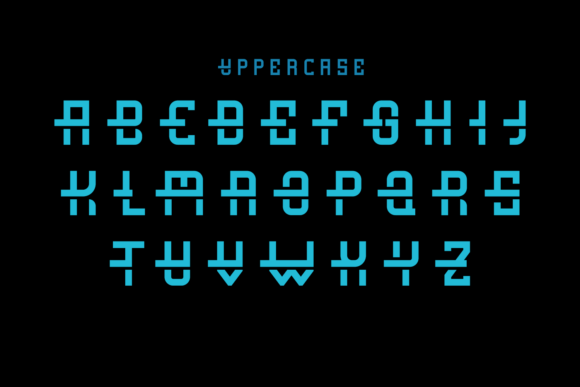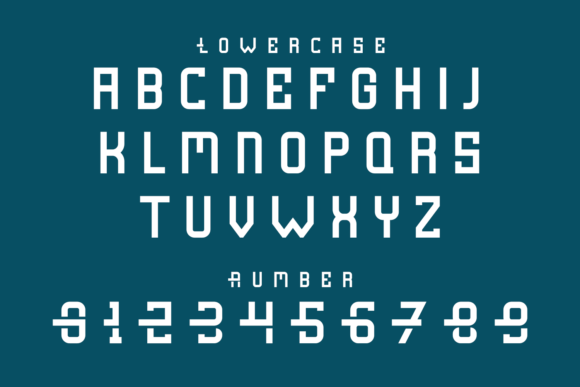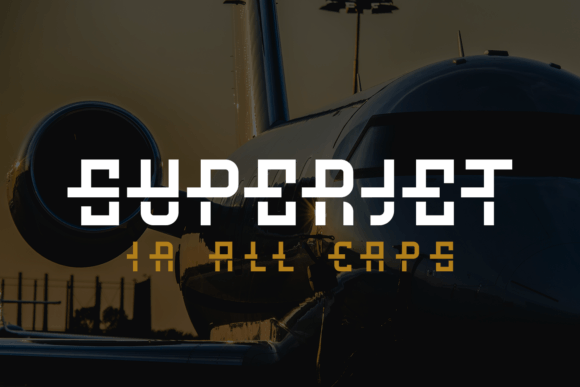
Introduction to Corteng Font
Corteng is a cool and modern display font.
No matter the topic, this font will be an incredible asset to your fontsโ€™ library, as it has the potential to elevate any creation .
Key Features of Corteng Font
Why Choose Corteng Font?
Corteng Font offers exceptional quality and versatility, making it a valuable addition to your design toolkit. Whether you’re creating for personal projects or commercial use, Corteng Font delivers professional results.